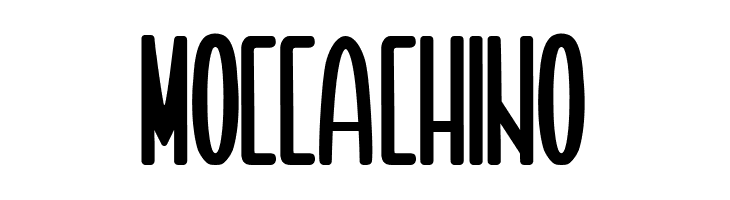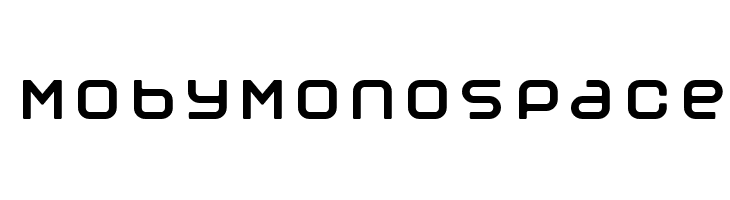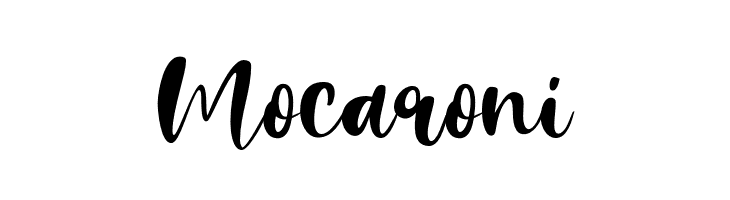
A bold, decorative font with integrated gun illustrations, perfect for dramatic designs.
A tall, narrow, and modern font with clean lines and uniform spacing.
A modern, geometric font with rounded edges and a minimalist design.
A bold, rounded font with a modern and playful style.
A bold, expressive script font with a dynamic, handwritten style.
A modern, monospaced font with rounded edges and consistent stroke weight.